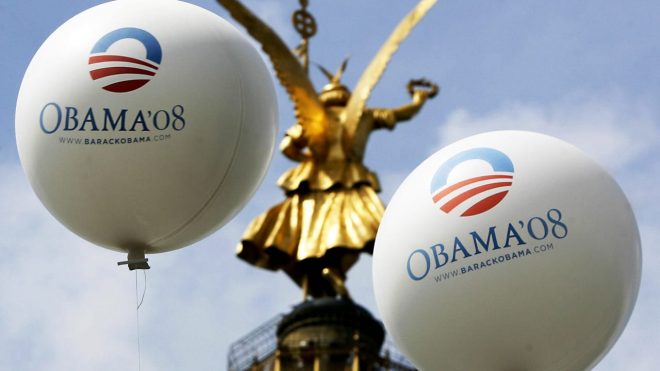
How typefaces influence you
A typeface choice could influence your perception of people running for school board seats, the lawyer opening a new law office, or the coffee shop you never noticed before.
Any graphic designer worth their salt can tell you the best typeface for a new law practice in town is going to be drastically …